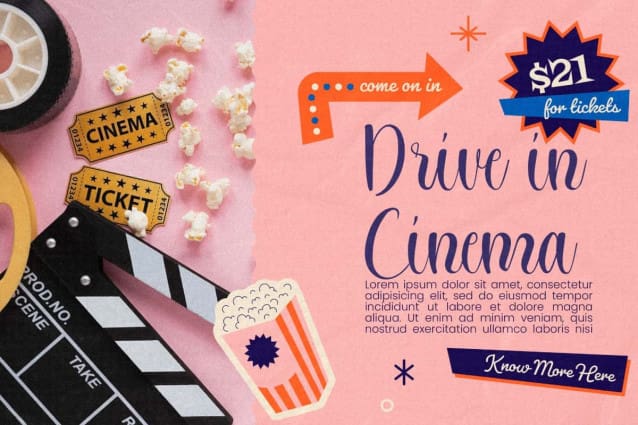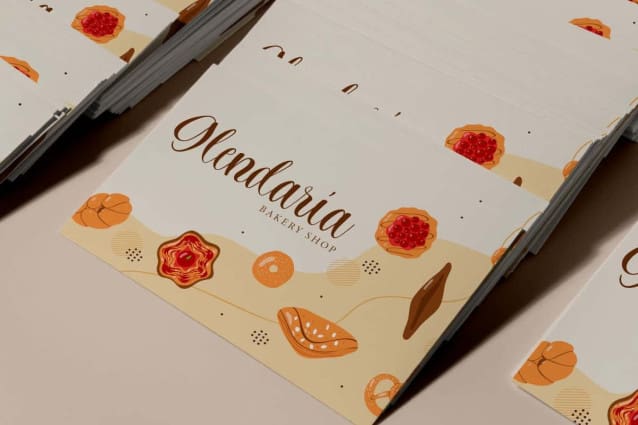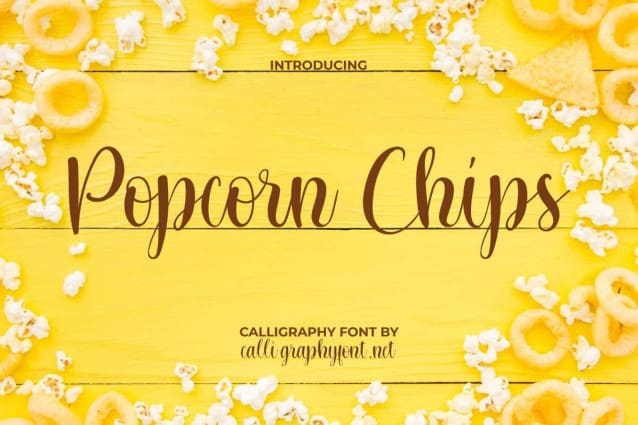
Popcorn Chips Font
Popcorn Chips Font is a beautiful calligraphic script font inspired by classic calligraphy. This beautiful and natural handcrafted font evokes a minimalist and charming feel. Since it is made with a regular consistency it flows easily to add an organic touch to your designs. Ideal for ads board, brochure, card, header, invitation, logos, menu, poster, quote, title, watermark and much more.
Popcorn Chips Font will be able to bring a distinctive appeal. Each of its elegant character shapes will easily elevate the quality of any project, whether for use in print or digital content. It will evoke a sense of creative individuality. The authentic touch that flows smoothly across themes and is versatile will enrich the existing charm. This font is great for bakery, cafeteria, event organizer, graphic design, handicraft, movie, etc.